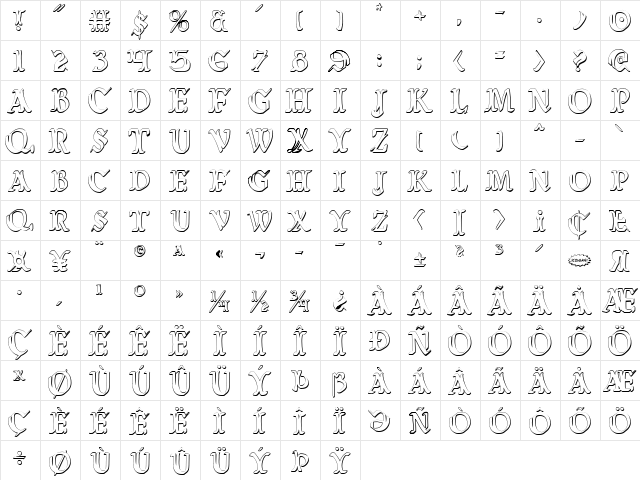
Wars of Asgard Condensed 3D Condensed
Condensed ·  Daniel Zadorozny ·
Design Context for Wars of Asgard Condensed 3D Typeface
Wars of Asgard Condensed 3D is a composed and adaptable typeface that performs quietly and consistently across a wide range of design contexts. The condensed width makes it efficient for tight spaces without sacrificing legibility.